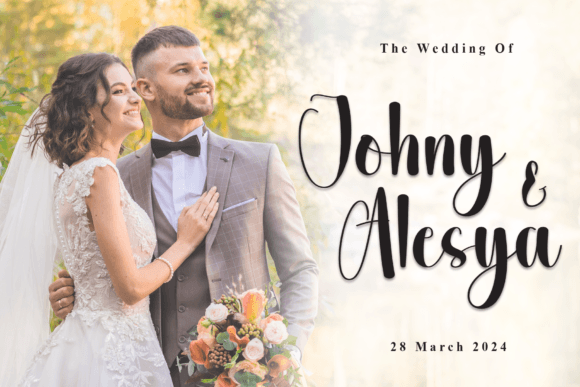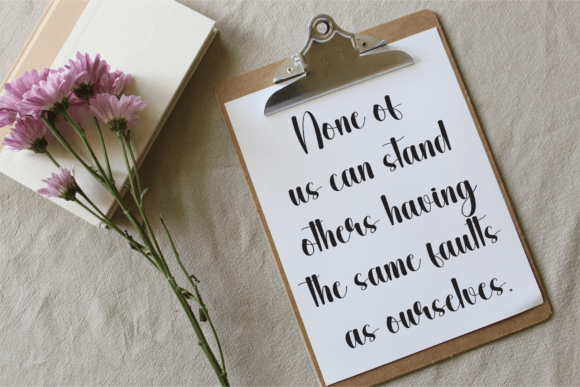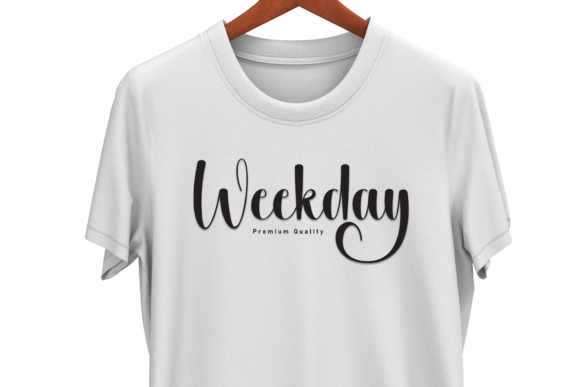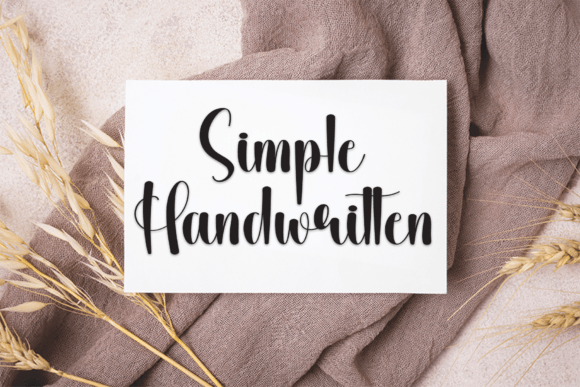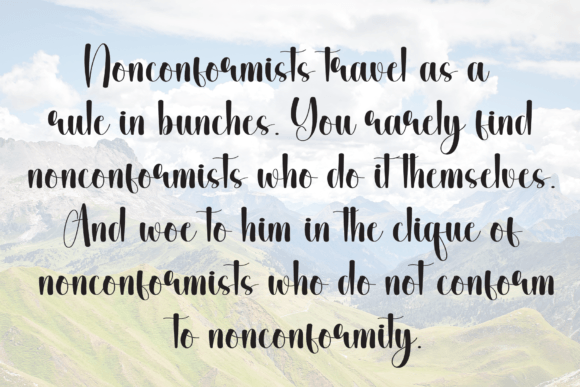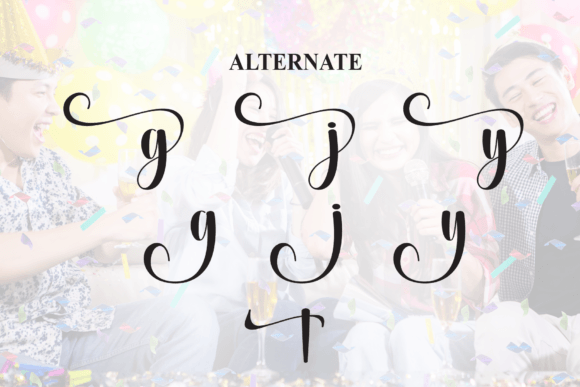
Introducing Happy Party Font: Elevate Your Designs with Elegance and Style
Are you a designer or crafter looking for a font that adds a touch of sophistication and whimsy to your projects? Look no further than Happy Party Font, a stunning script font that is sure to elevate your designs to the next level. In this article, we’ll dive into the features and benefits of Happy Party Font, and explore how it can be used to create beautiful and eye-catching designs.
What is Happy Party Font?
Happy Party Font is a stylish and incredibly elegant script font that is perfect for adding a handwritten touch to your designs. With its flowing curves and delicate lines, this font is sure to add a touch of sophistication and whimsy to any project. Whether you’re designing wedding invitations, thank you cards, quotes, greeting cards, logos, or business cards, Happy Party Font is the perfect choice.
Key Features of Happy Party Font
- Elegant Script Style: Happy Party Font features a beautiful script style that is perfect for adding a touch of elegance to your designs.
- Handwritten Touch: This font has a handwritten feel that adds a personal touch to your designs.
- Versatile: Happy Party Font can be used for a wide range of design projects, from wedding invitations to business cards.
- Easy to Read: Despite its elegant style, Happy Party Font is easy to read, making it perfect for use in quotes, greeting cards, and other designs where text needs to be clear.
How to Use Happy Party Font in Your Designs
Happy Party Font is incredibly versatile and can be used in a wide range of design projects. Here are a few ideas to get you started:
- Wedding Invitations: Add a touch of elegance to your wedding invitations with Happy Party Font. Use it for the main text or as a decorative element to add a personal touch.
- Thank You Cards: Show your appreciation in style with Happy Party Font. Use it to add a personal touch to your thank you cards and make them stand out.
- Quotes and Greeting Cards: Happy Party Font is perfect for use in quotes and greeting cards. Add a touch of elegance and whimsy to your designs with this beautiful font.
- Logos and Business Cards: Use Happy Party Font to add a touch of sophistication to your logos and business cards. This font is sure to make your designs stand out.
Tips for Getting the Most Out of Happy Party Font
Here are a few tips for getting the most out of Happy Party Font:
- Experiment with Different Sizes: Happy Party Font looks great in a wide range of sizes. Experiment with different sizes to find the one that works best for your design.
- Pair it with Other Fonts: Happy Party Font pairs well with a wide range of other fonts. Experiment with different pairings to find the one that works best for your design.
- Use it to Add a Personal Touch: Happy Party Font has a handwritten feel that adds a personal touch to your designs. Use it to add a personal touch to your designs and make them stand out.
Happy Party Font is a beautiful and elegant script font that is perfect for adding a touch of sophistication and whimsy to your designs. With its flowing curves and delicate lines, this font is sure to elevate your designs to the next level. Whether you’re a designer or crafter, Happy Party Font is a must-have font that is sure to become a staple in your design toolkit.